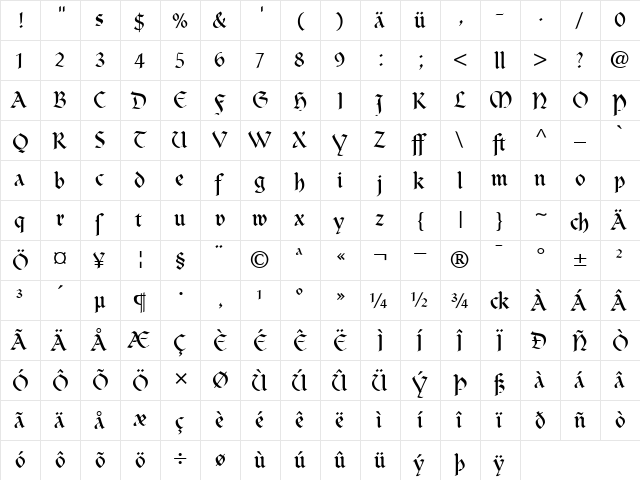
ClairvauxDfr Roman
Design Context for ClairvauxDfr Typeface
ClairvauxDfr is a composed and adaptable typeface that performs quietly and consistently across a wide range of design contexts.